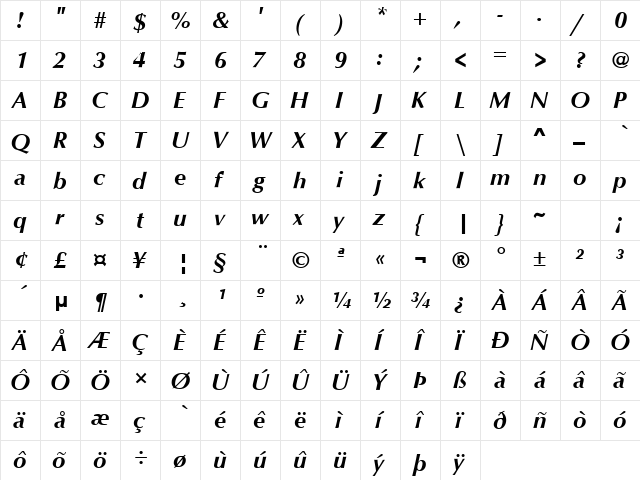
Optimum Bold Italic Font Preview
Design Context for Optimum Typeface
Optimum takes a measured approach to typography — its balanced proportions and neutral character make it a reliable workhorse for both digital and print work. The dynamic lean of this cut emphasises speed and emphasis in any layout. The heavy weight commands attention and anchors typographic hierarchies.